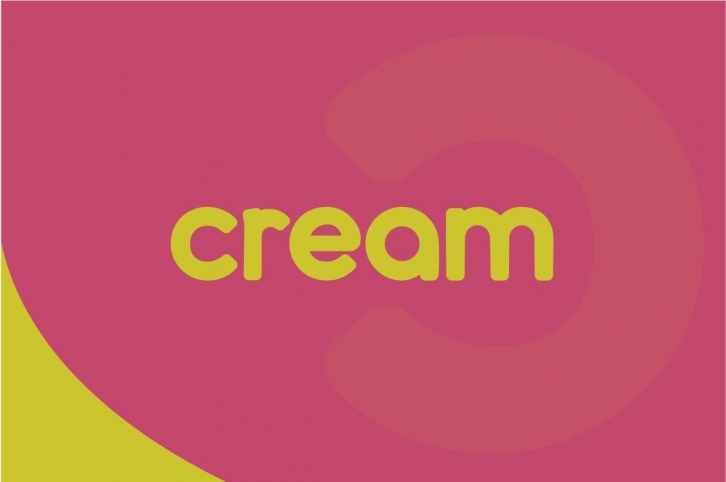
cream is a beautiful font that was designed by shaped fonts. It's a great choice for designers and creatives who need such a font. It was released on April 15, 2020 and the file size is 18.16 MB. cream may give a more youthful, expressive and casual look to your project. It is a very beautiful, refined, elegant, and high-quality font.